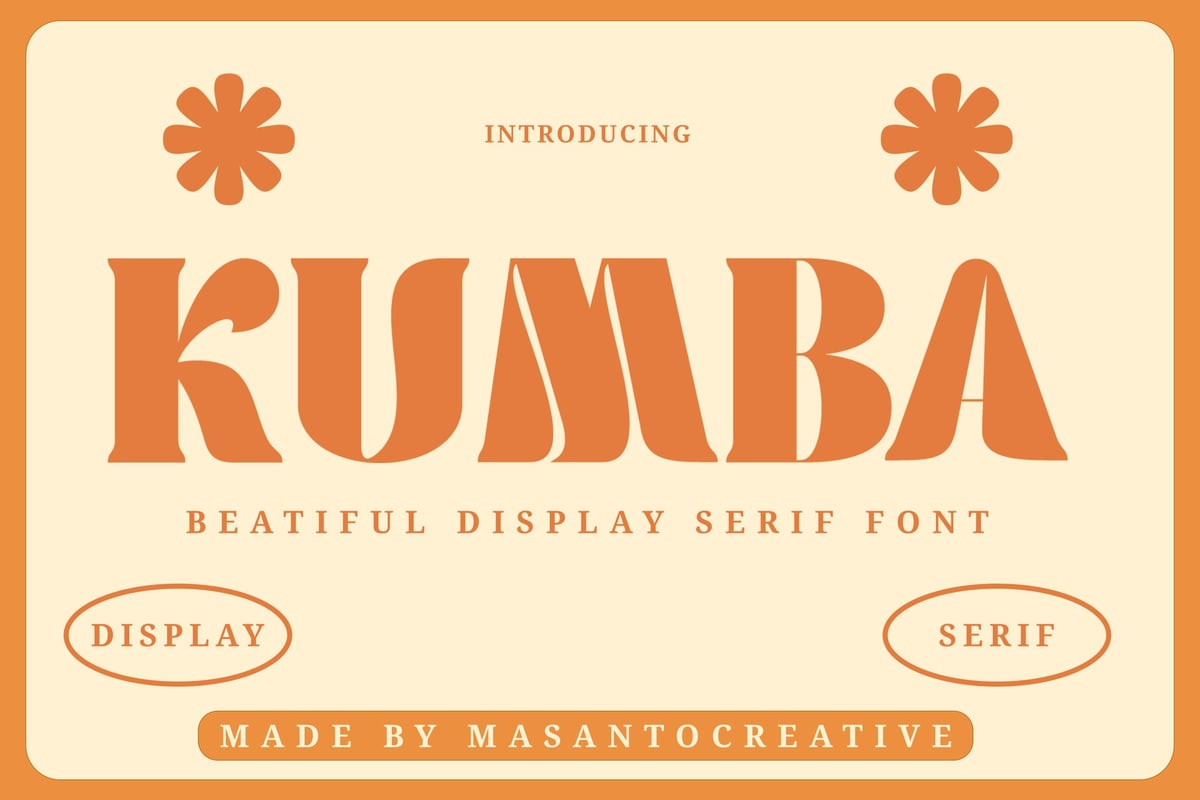
Kumba – Display Serif Typeface
Kumba is a bold, characterful display serif built to make every headline impossible to ignore.
With its thick proportions, distinctive curves, and playful serif details, Kumba strikes the perfect balance between retro charm and modern confidence. Whether you're designing a vintage-inspired poster or a sleek contemporary brand identity, this typeface brings a strong, memorable personality to the page.
Kumba is well-suited for a wide range of design applications, including:
- Headlines and editorial layouts
- Posters and print collateral
- Logos and brand identities
- Packaging and product design
The typeface includes a full character set with uppercase and lowercase letters, numerals, punctuation, and multilingual support — making it a versatile choice for international projects.